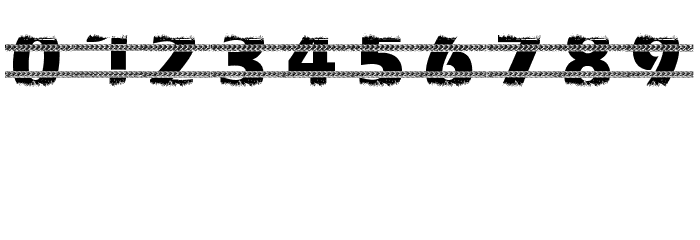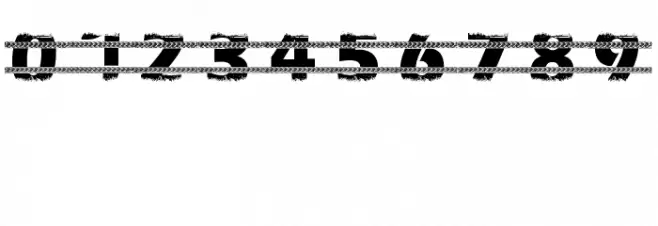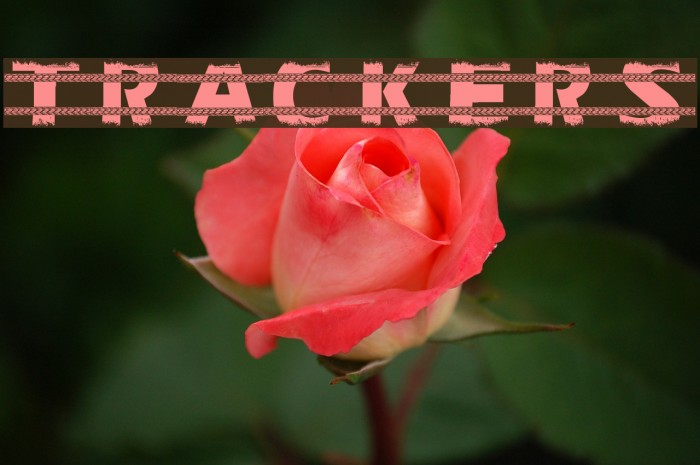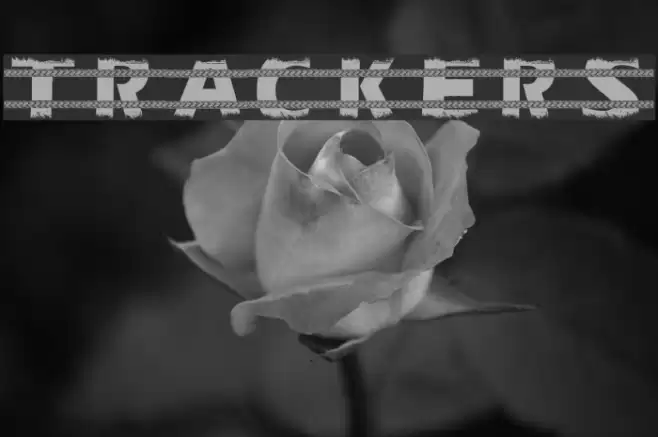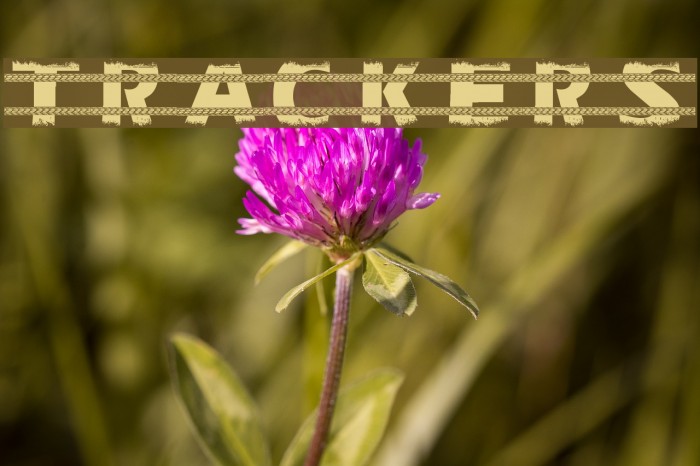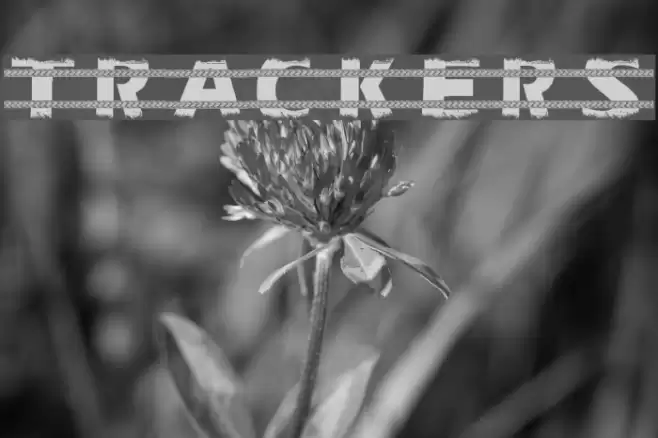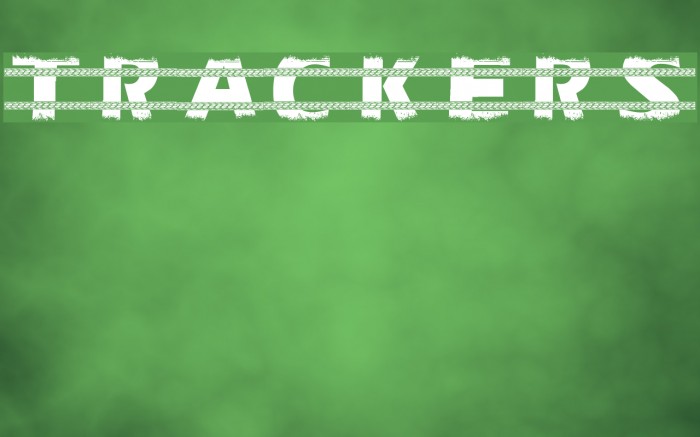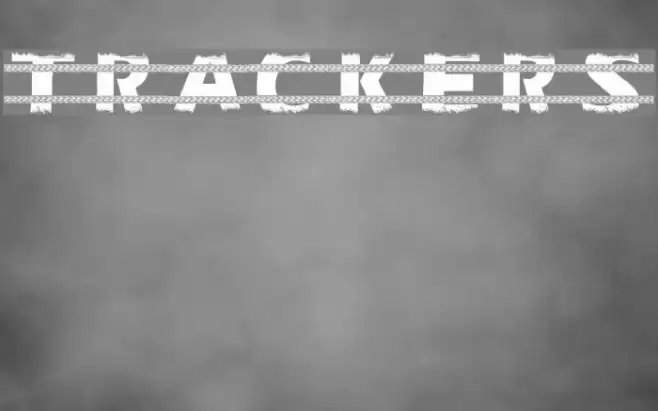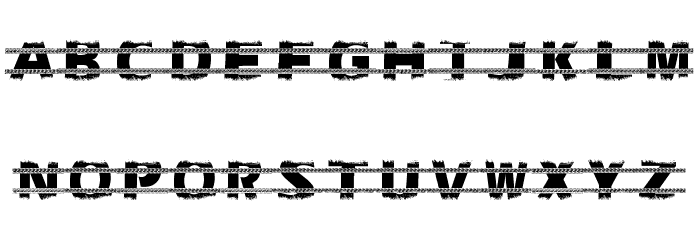
Trackers Font
This font features a unique, distressed style with a bold, textured appearance. Each character is intersected by a horizontal line, giving it a gritty, industrial look. The uppercase letters are consistent in height, while the numbers maintain a uniform style. The font's rugged aesthetic makes it stand out, with a design that suggests movement and energy. The characters are tightly spaced, enhancing the boldness of the font. This font is ideal for projects that require a strong, impactful visual presence.
A bold, distressed font with a gritty, industrial style.
• Proposed Projects: Ideal for posters, album covers, urban-themed designs, and branding that requires a strong, edgy look.
• Category: Decorative/Display
• Bold: Yes
• Italic: No
• Weight: Bold
• Width: Normal
• Character Spacing: Tight
• Contrast: High
• Overall Style: Decorative
• Use Case: Headlines, Logos